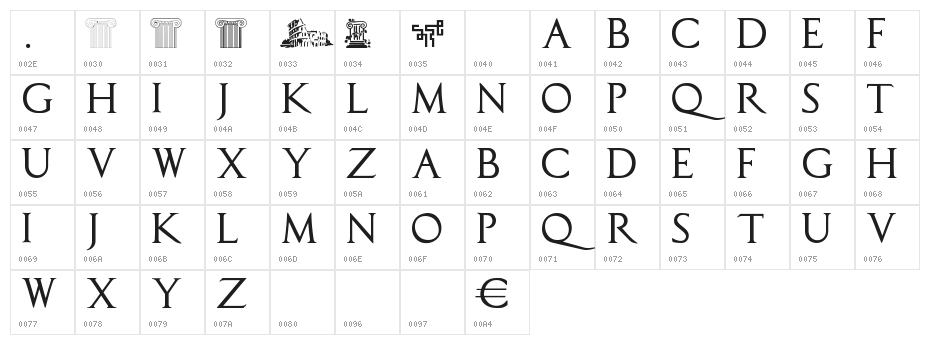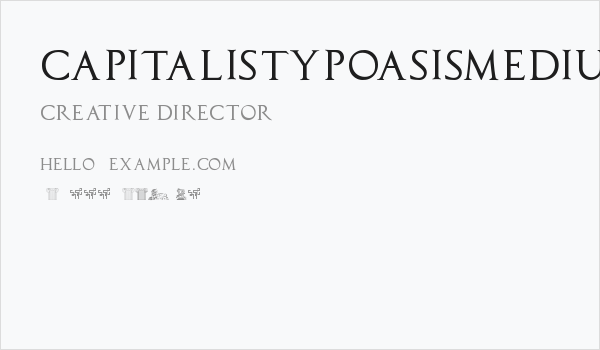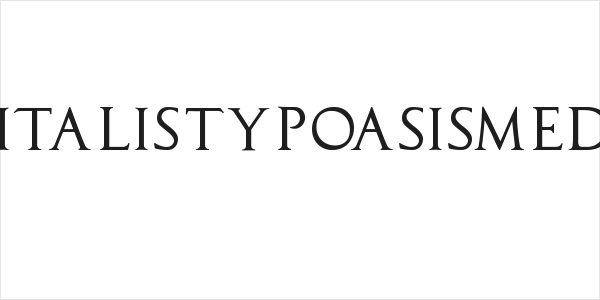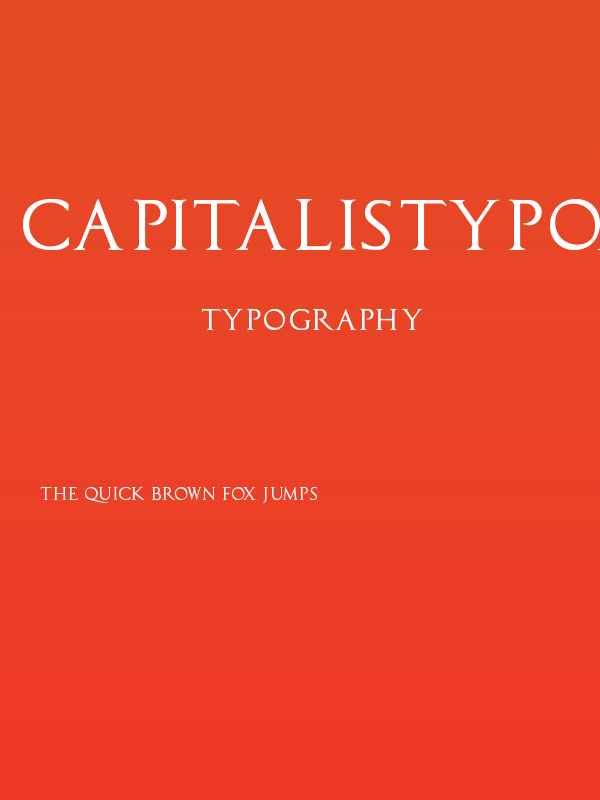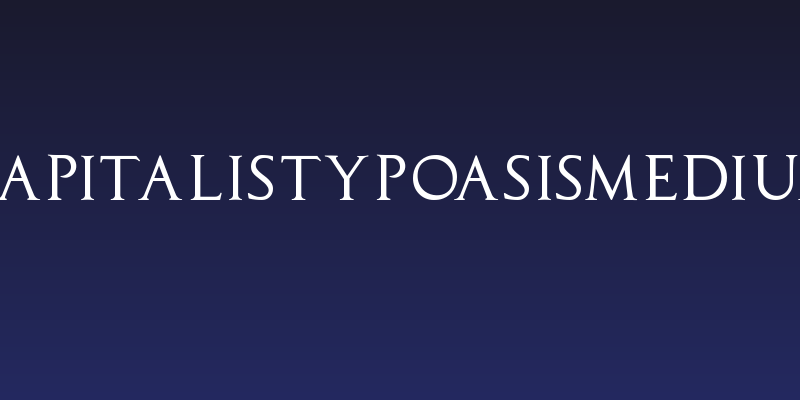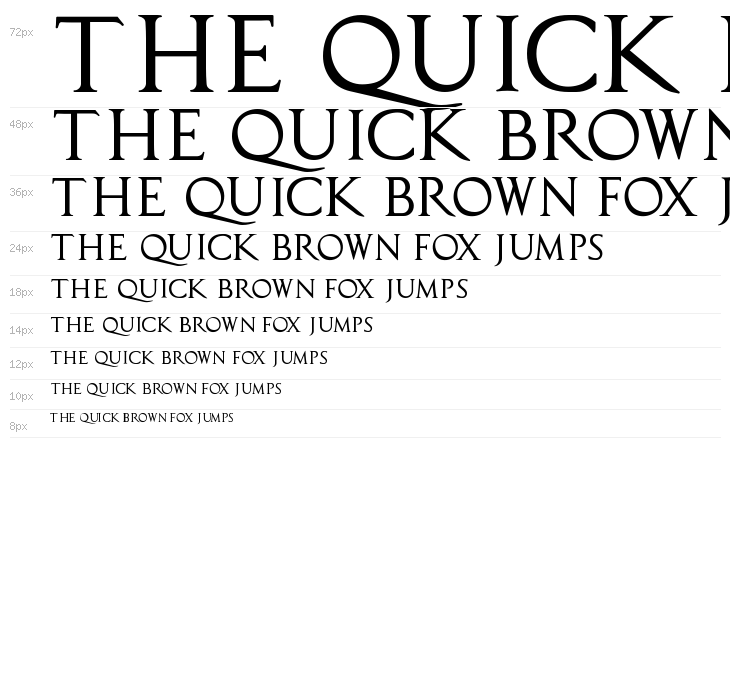
CapitalisTypOasisMedium Font
CapitalisTypOasisMedium Description
This font exudes a classic and elegant style, reminiscent of ancient Roman inscriptions. The characters are well-defined with a slight flair on certain letters, such as the Q and R, which adds a touch of sophistication. The serifs are pronounced, giving the font a traditional and authoritative appearance. The overall design is balanced, with consistent stroke widths that provide a harmonious look. The font is versatile, suitable for projects that require a historical or formal aesthetic.
| Use Case | Headlines, Logos, Formal documents |
| Proposed Projects | Ideal for use in formal invitations, historical publications, or branding that requires a touch of classical elegance. |